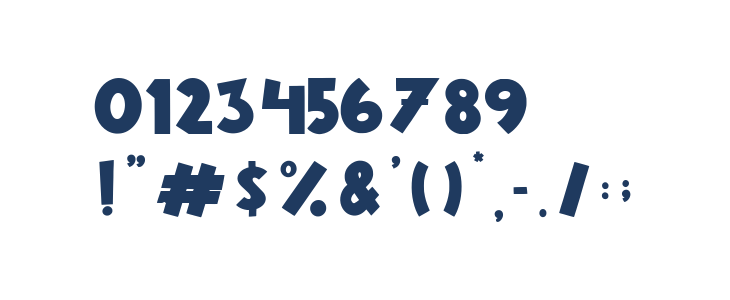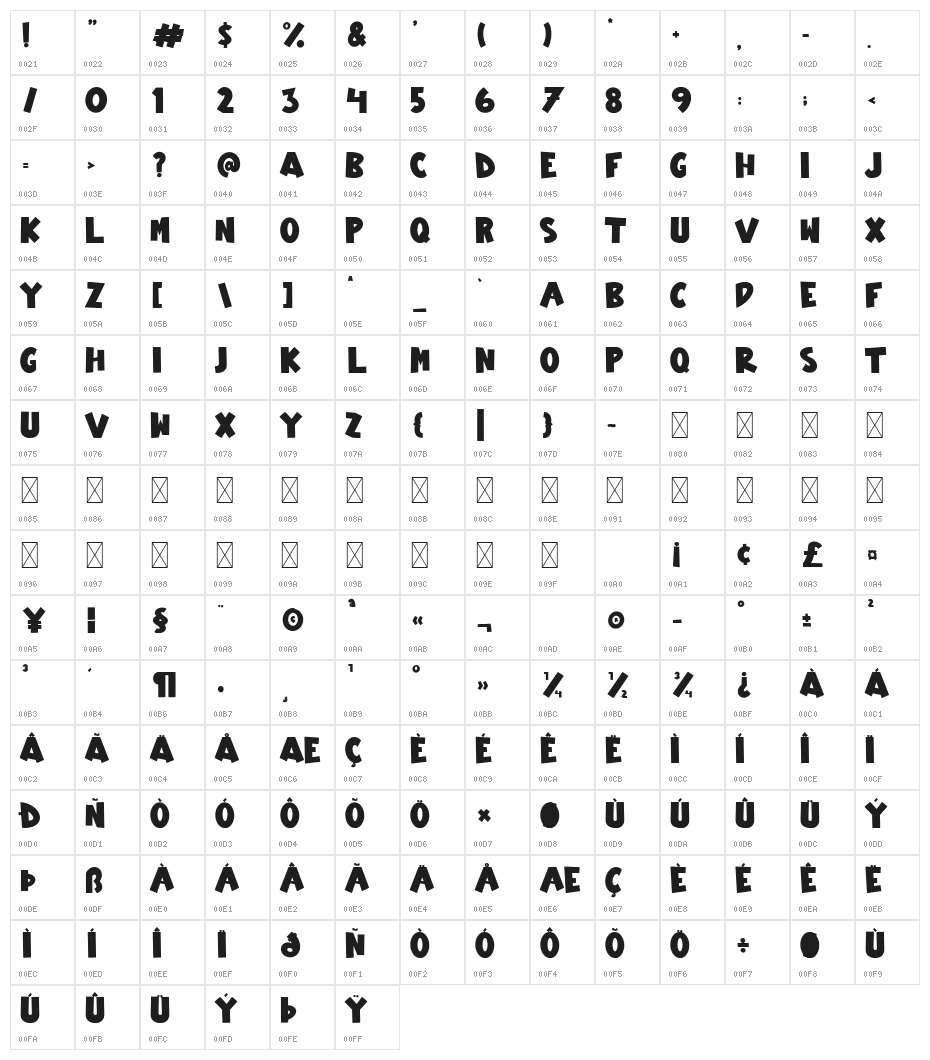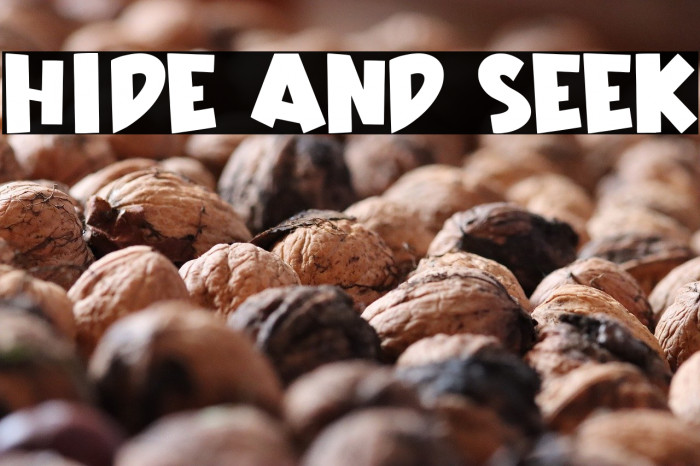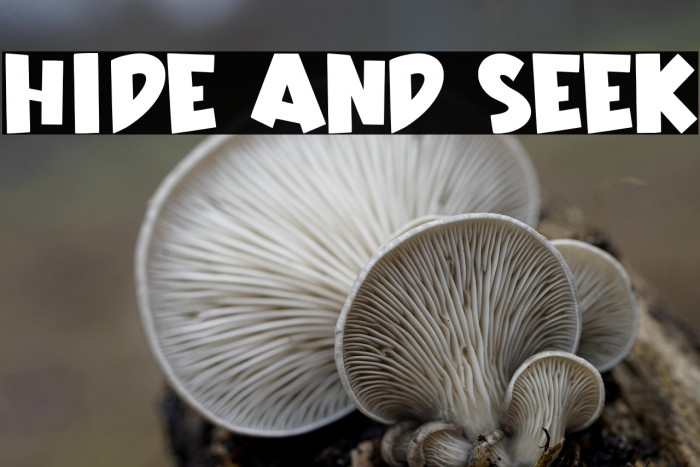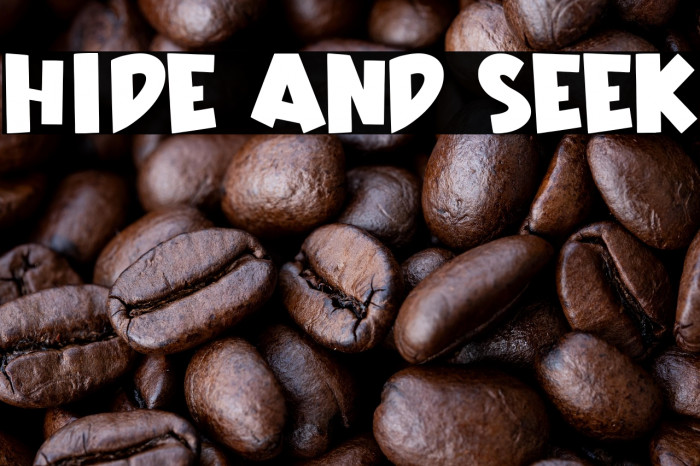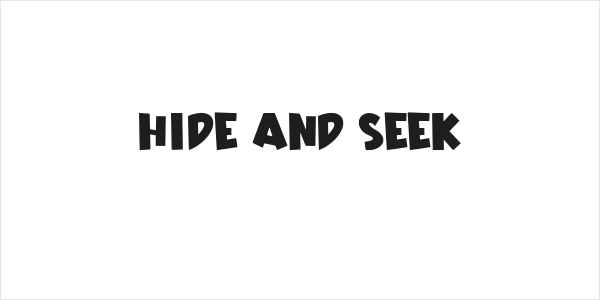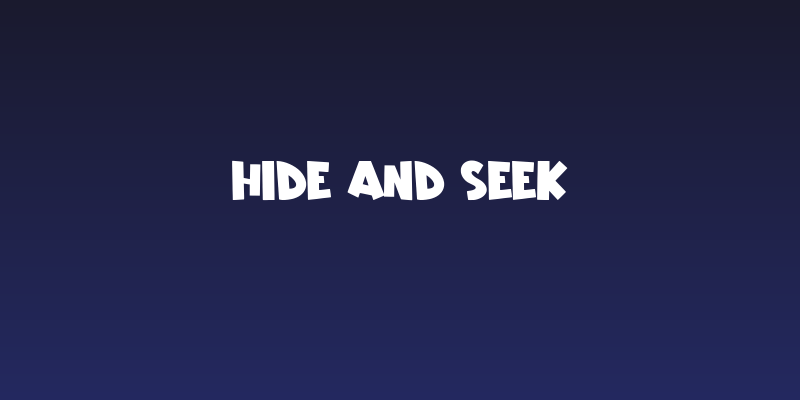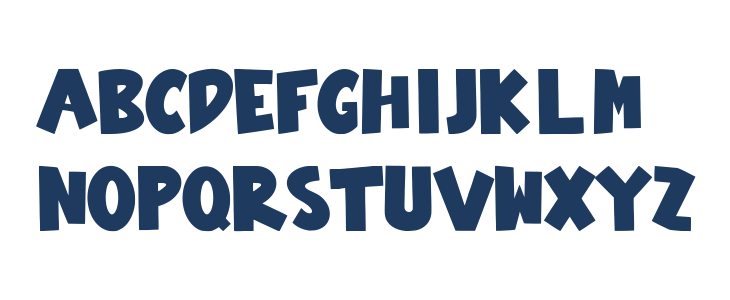
Hide And Seek Font
Hide And Seek Description
This playful and bold font features a quirky, cartoon-like style with exaggerated, uneven strokes that give it a lively and dynamic appearance. The letters are thick and chunky, with a slightly irregular shape that adds to its whimsical charm. The font is highly legible and stands out due to its boldness and unique character shapes. It includes a full set of uppercase and lowercase letters, numbers, and a variety of special characters, making it versatile for various design needs. The overall aesthetic is fun and energetic, perfect for capturing attention.
| Overall Style | Playful, Cartoonish |
| Use Case | Headlines, Posters, Branding |
| Proposed Projects | Ideal for children's books, comic strips, playful branding, and eye-catching posters. |